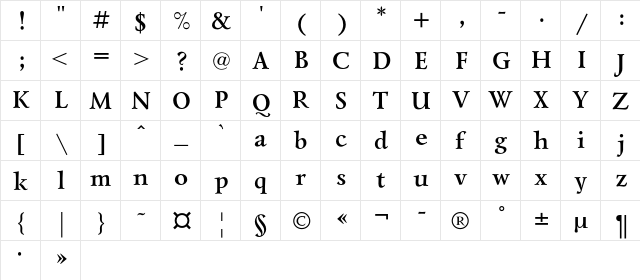
LazurskiExpOdC Bold
Design Context for LazurskiExpOdC Typeface
LazurskiExpOdC takes a measured approach to typography — its balanced proportions and neutral character make it a reliable workhorse for both digital and print work. The heavy weight commands attention and anchors typographic hierarchies.